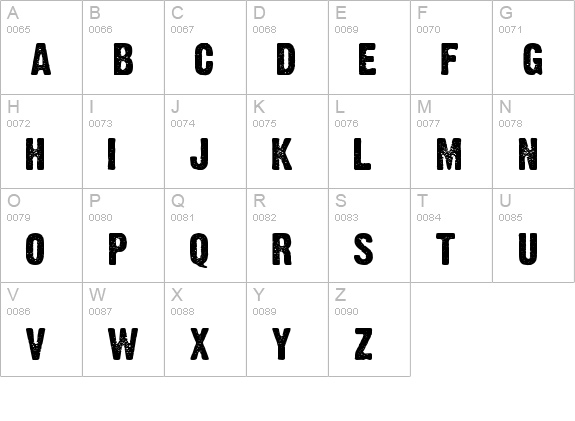
Dirty Headline Font Details
Introducing Dirty Headline font, a bold and edgy typeface that exudes attitude and strength. With its rugged style and distressed detailing, this font is perfect for making a statement in headlines, posters, and branding projects. The rough texture and uneven lines give Dirty Headline a raw and urban feel, making it ideal for projects that require a touch of grit and intensity. The best part? Dirty Headline font is available for free download at FontsMarket.com. So go ahead and add a touch of rebellious flair to your designs with this eye-catching typeface. Let your creativity run wild with Dirty Headline font and make a bold impression with every word you write.